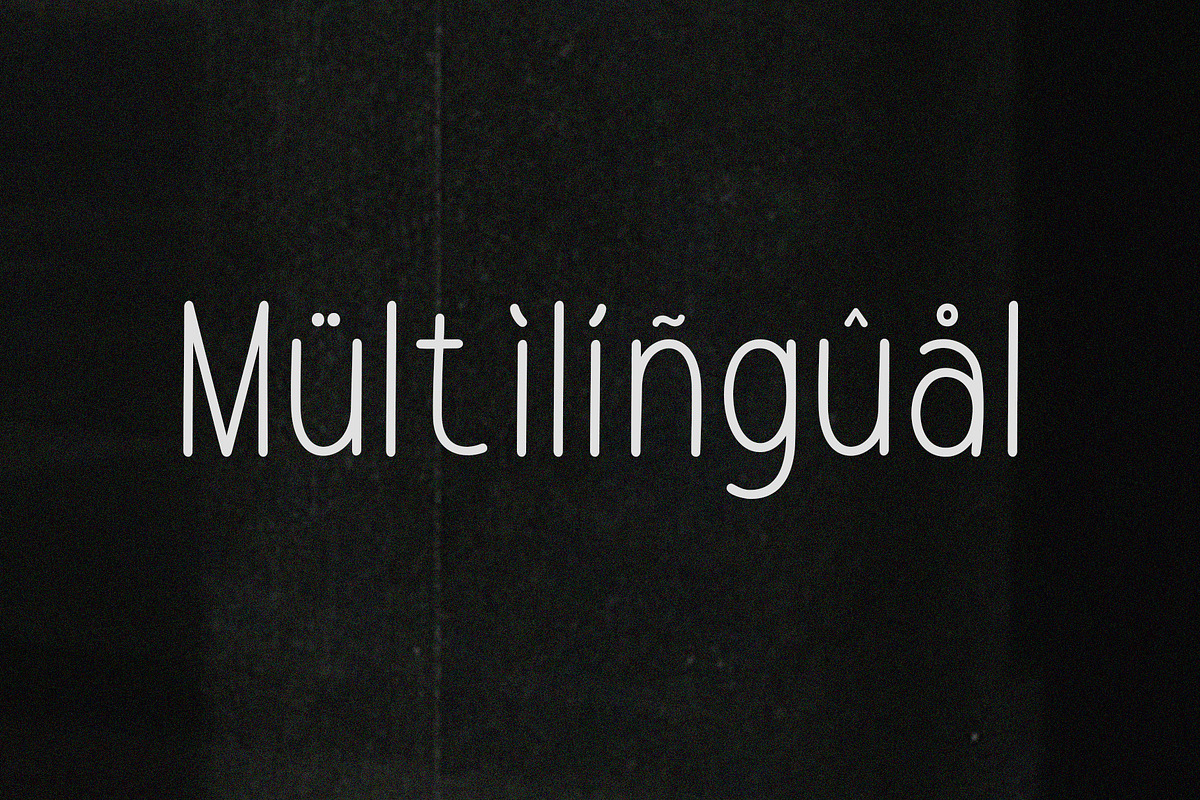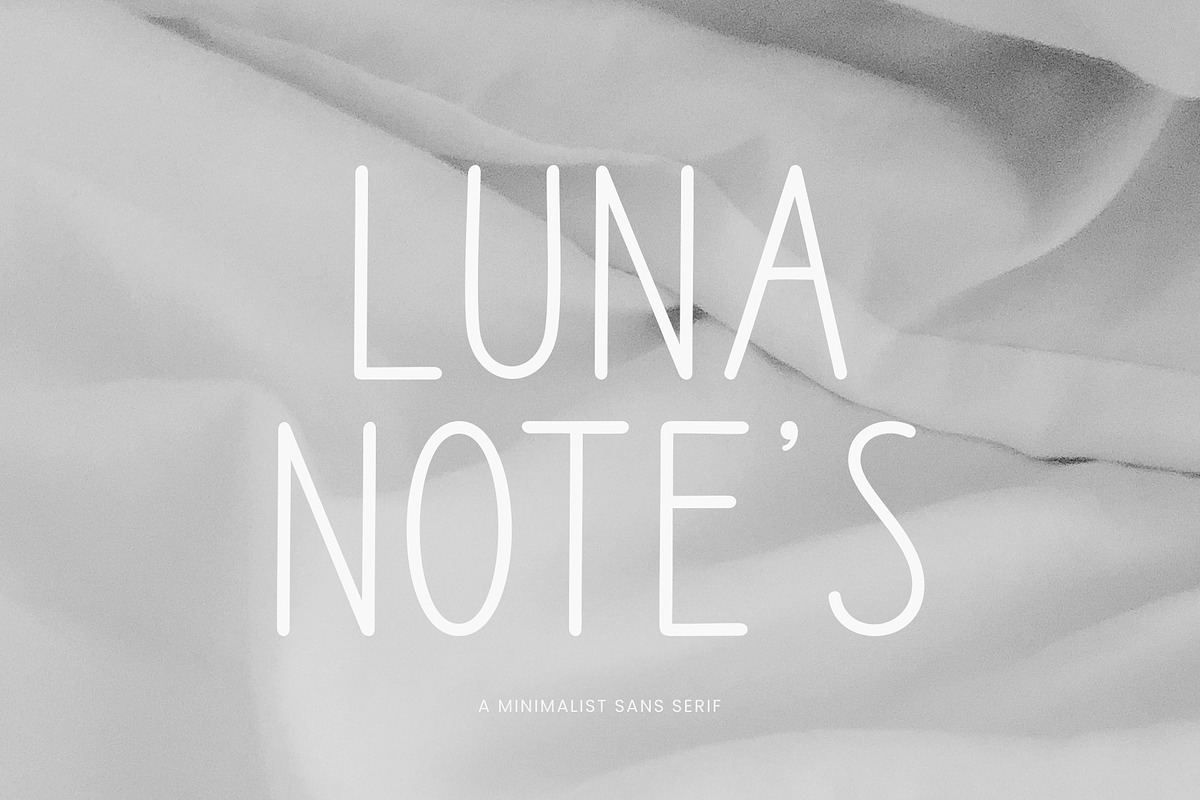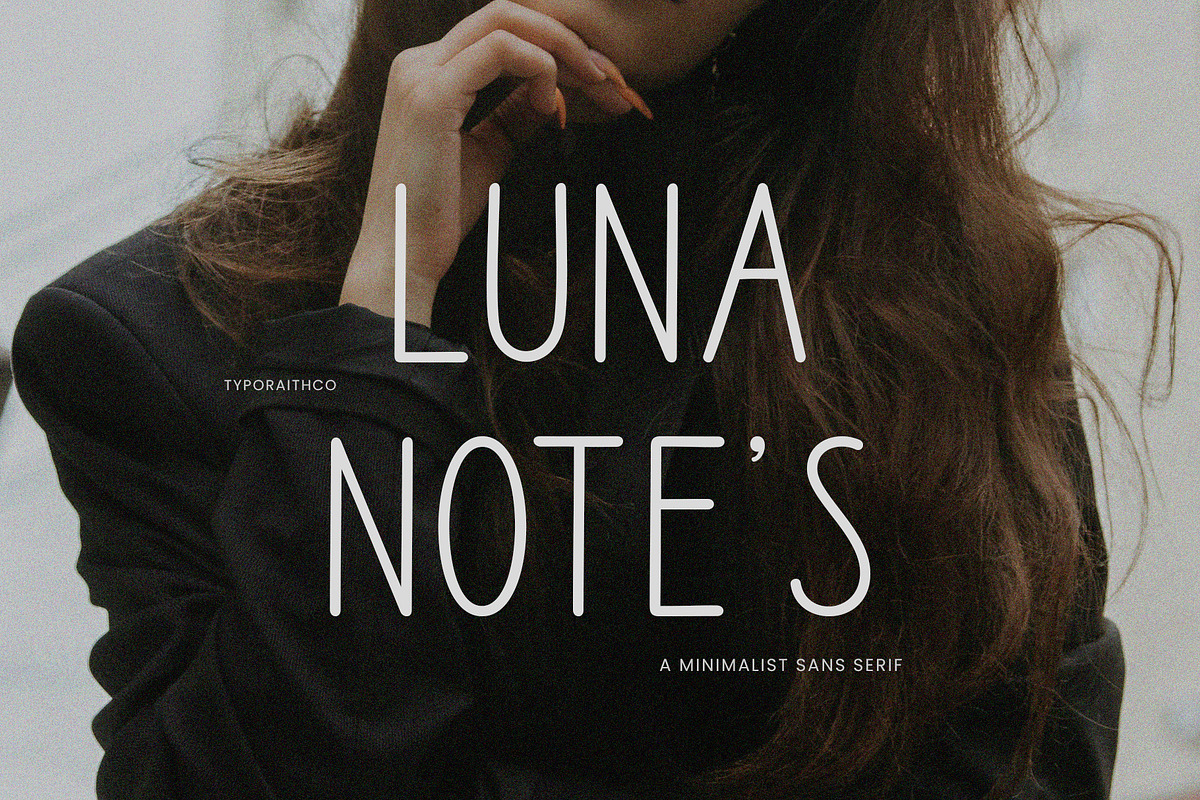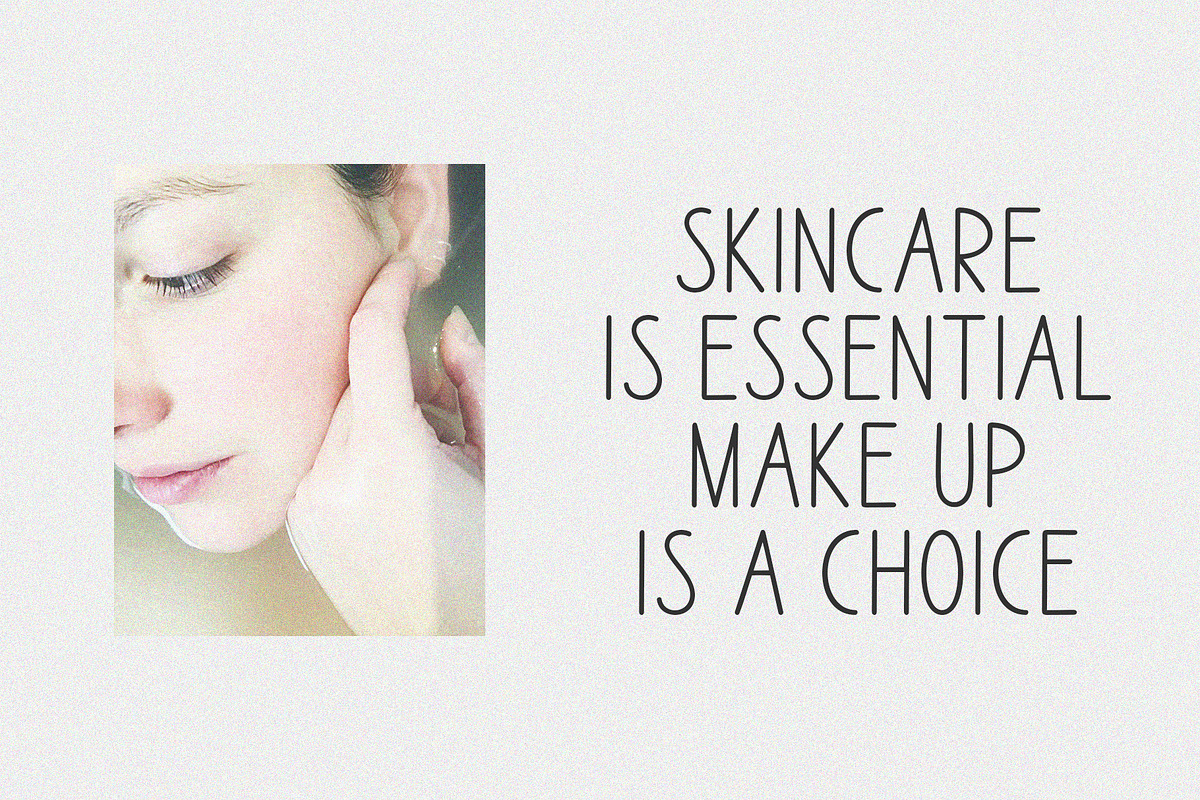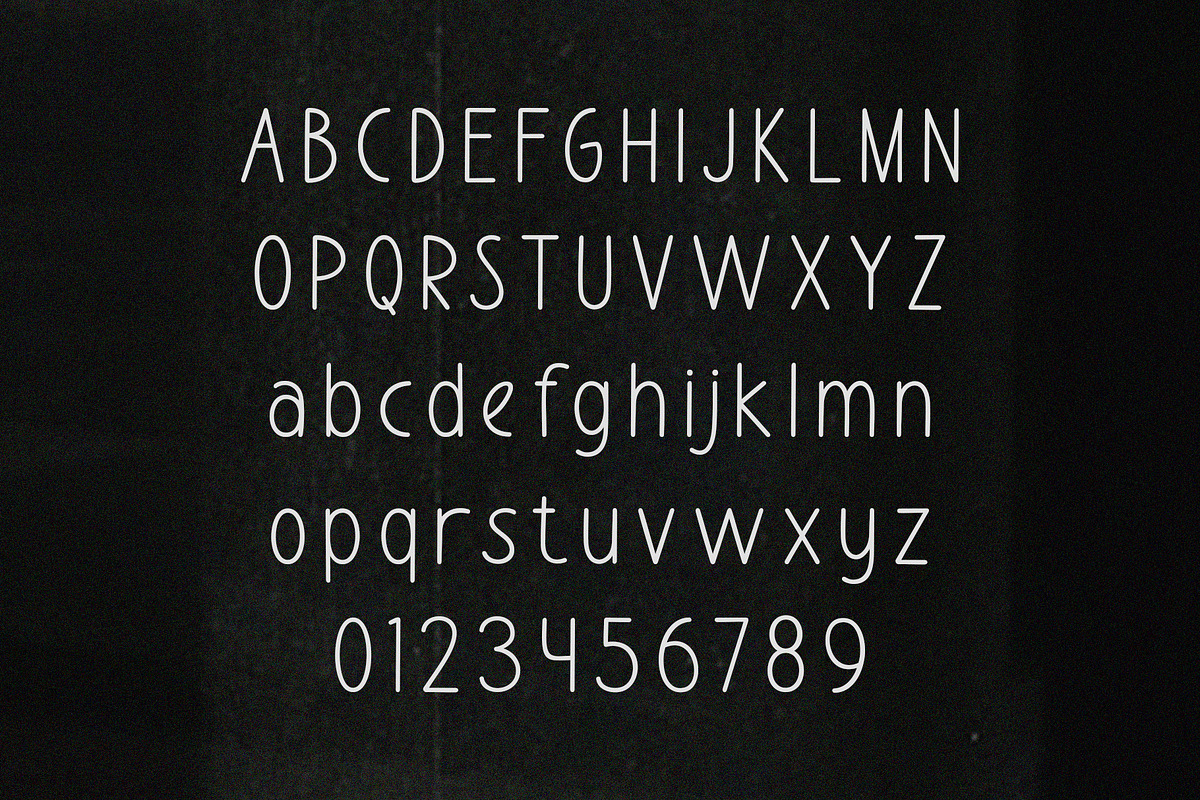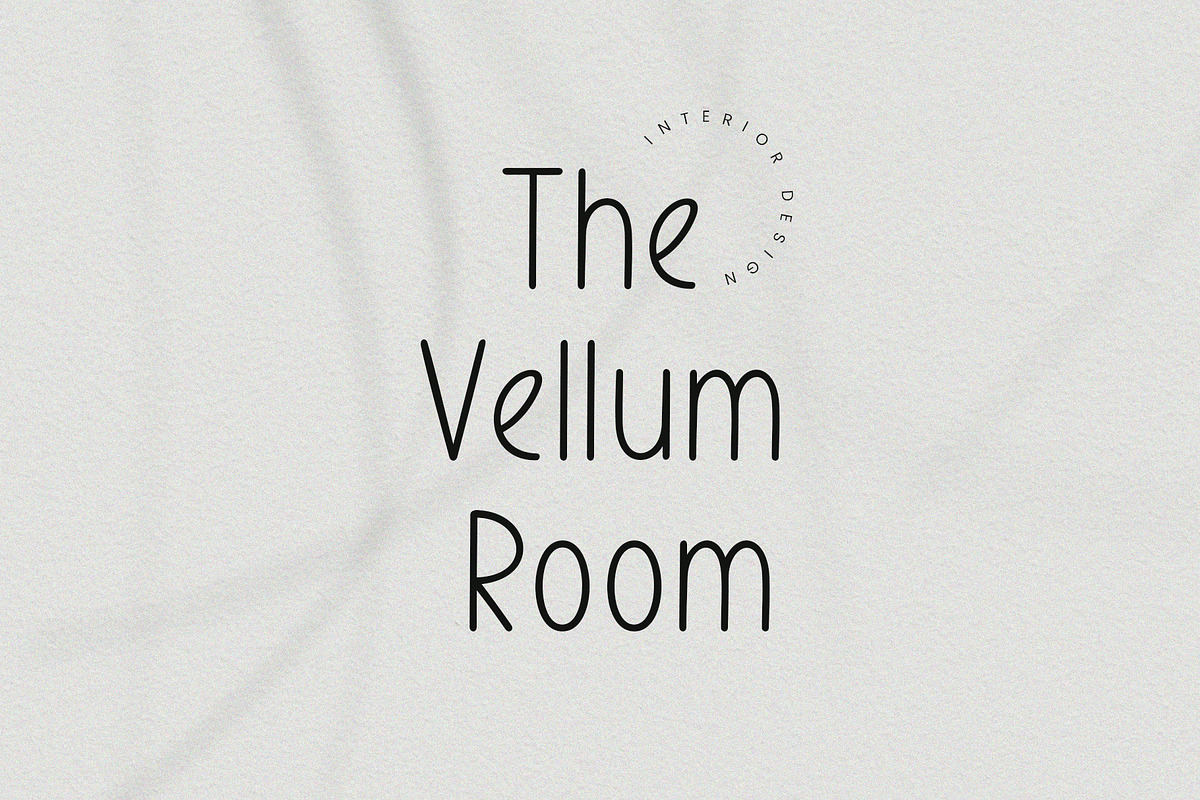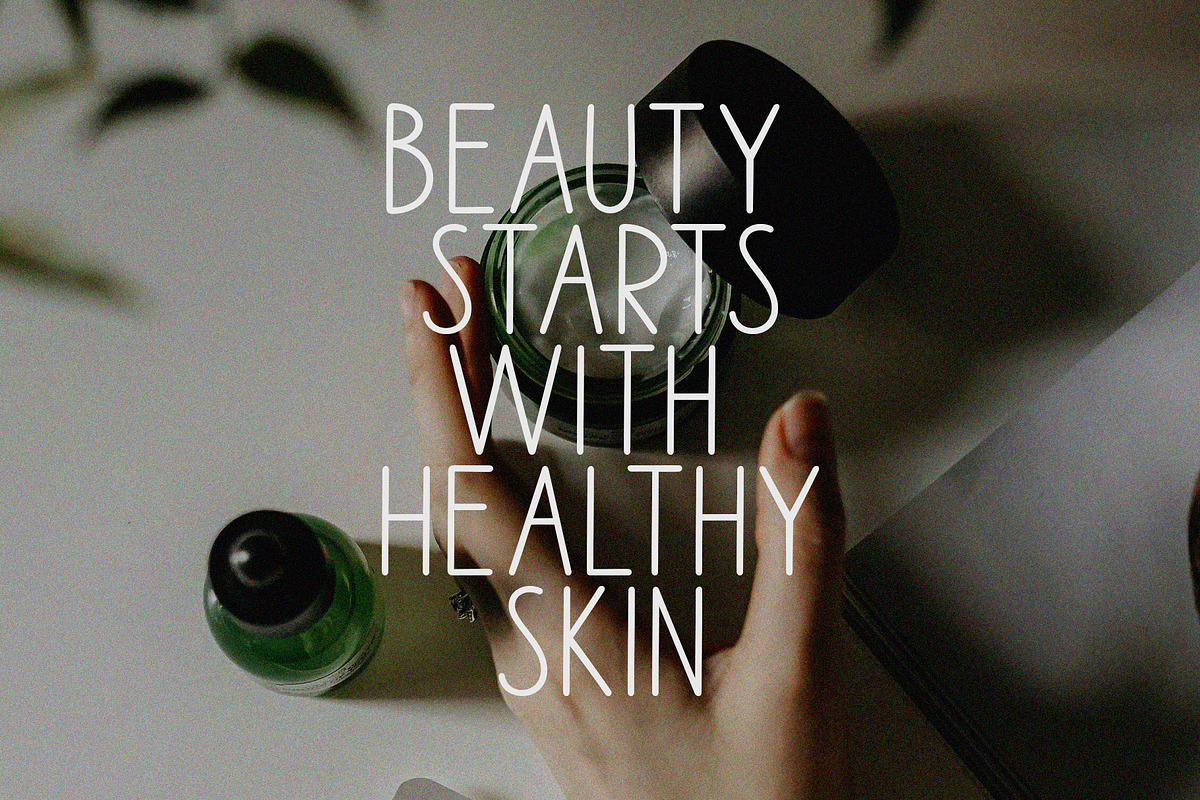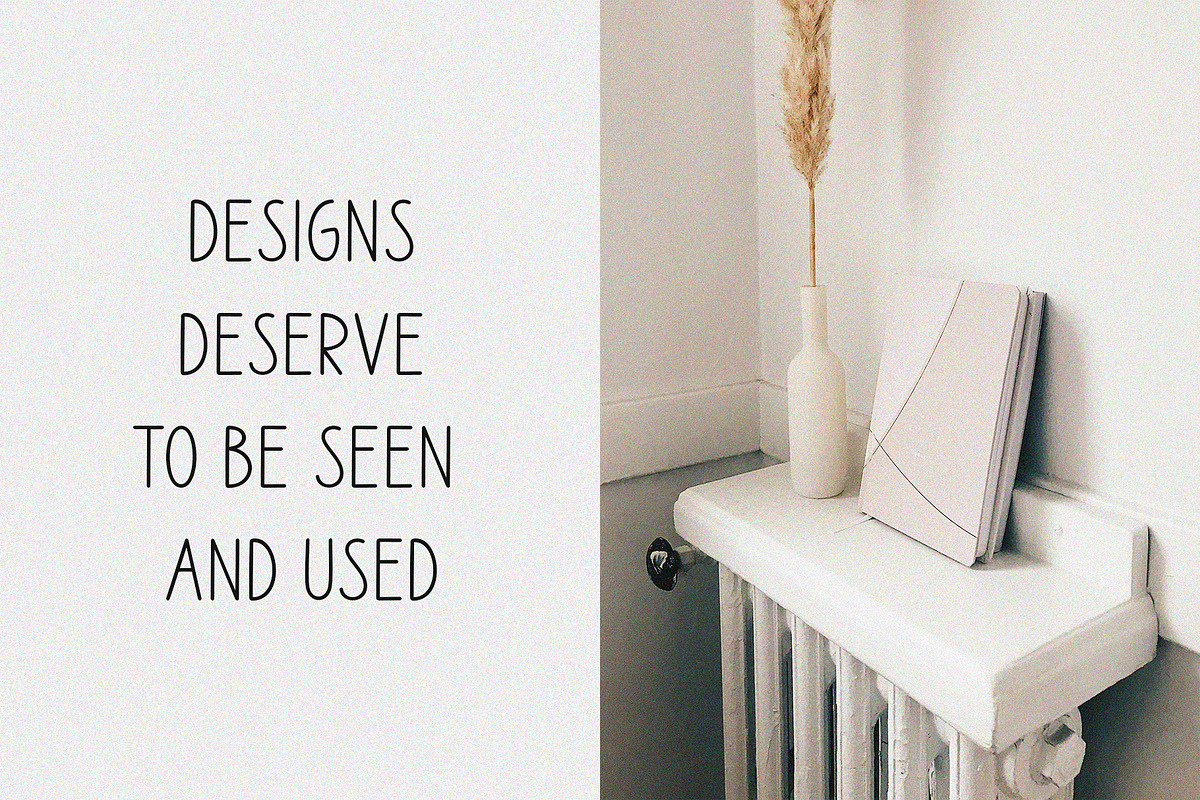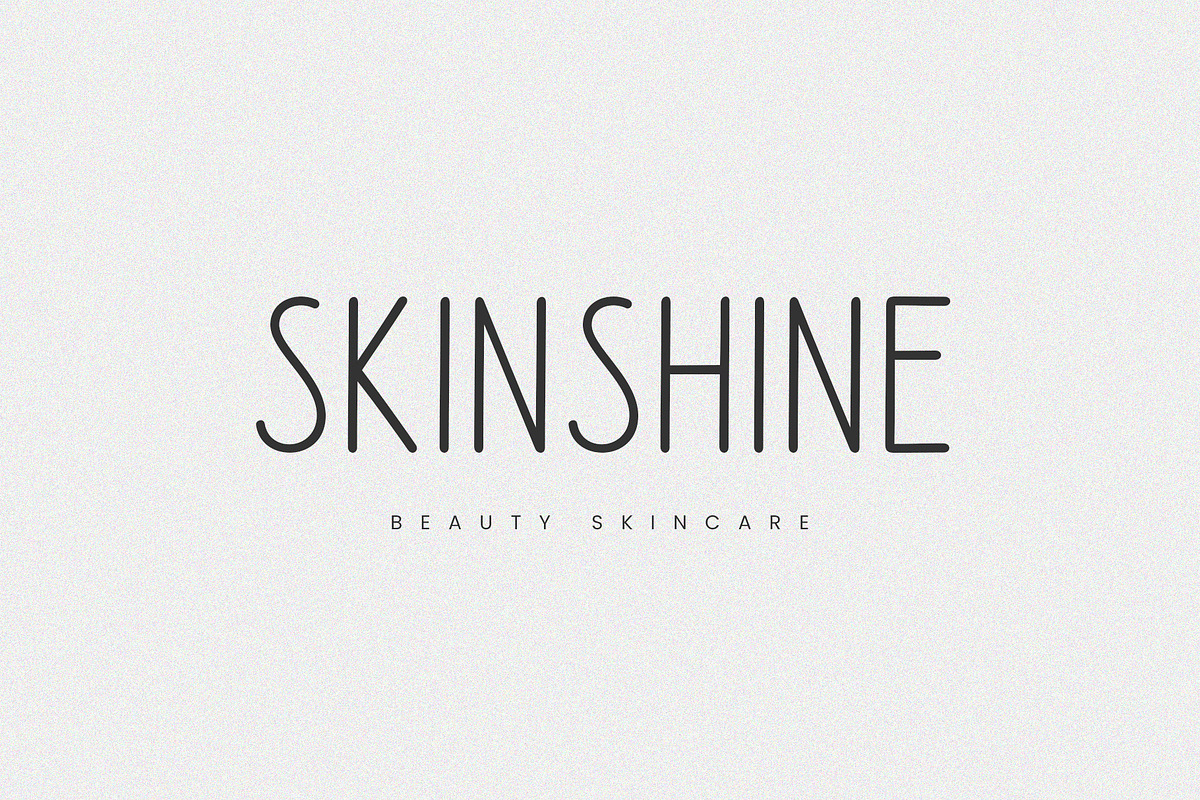
Luna Notes | A Minimalist Sans
Luna Notes is a clean and modern minimalist sans serif font designed for elegant, simple, and contemporary projects. With smooth lines and balanced proportions, this font delivers a calm and refined aesthetic that works beautifully across digital and print designs.
Perfect for branding, logos, editorial layouts, fashion designs, social media graphics, websites, posters, and minimalist typography projects. Luna Notes brings clarity, sophistication, and versatility to every design.
Minimalist sans serif style
Clean & modern letterforms
Easy to read and highly versatile
Ideal for branding, logos, and editorial use
Suitable for digital & print projects
All caps, numbers & basic punctuation
Alternate, Ligature, Multilingual
Create timeless designs with Luna Notes, where simplicity meets modern elegance.